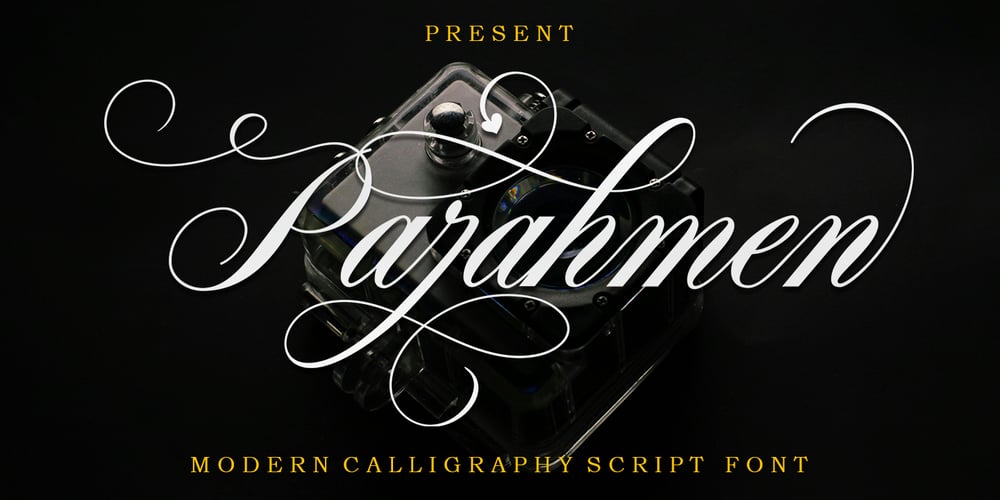
Parahmen Font Family was designed by Teuku Muhammad Zaki and published by Zaki Creative. Parahmen contains 1 styles and family package options. Parahmen Calligraphy is a distinct graceful script font. Fall for its ravishing style and use it to create gorgeous designs. This font is PUA encoded which means you can access all glyphs and swashes with ease!